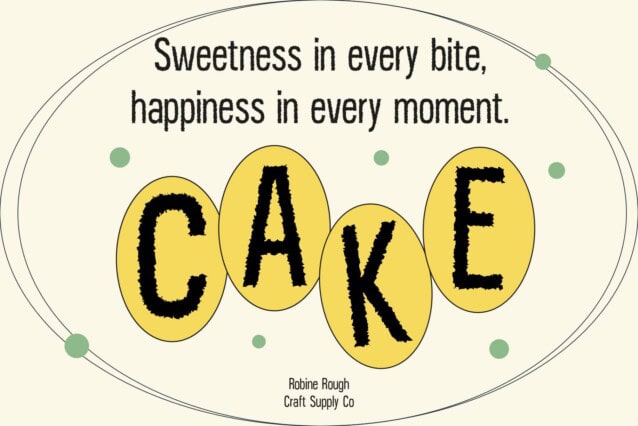
Robine Rough Font
Robine Rough Font is a modern sans-serif font featuring a condensed shape and bold structure, perfect for creating a strong and industrial aesthetic. Its narrow proportions and tight spacing maximize space efficiency while maintaining an assertive and confident look, making it ideal for attention-grabbing headlines, logos, and branding.